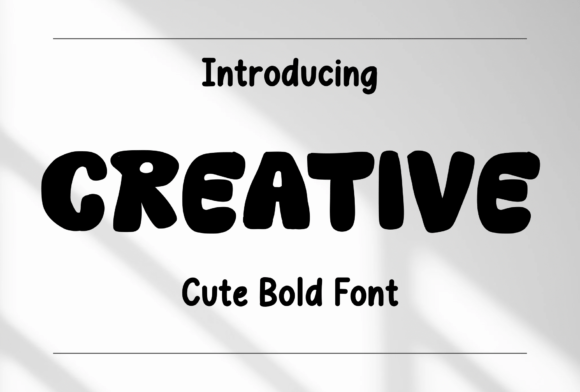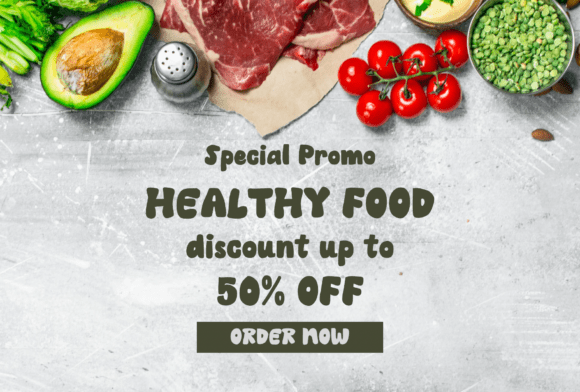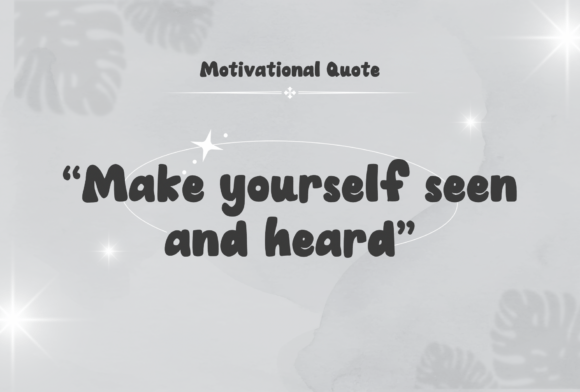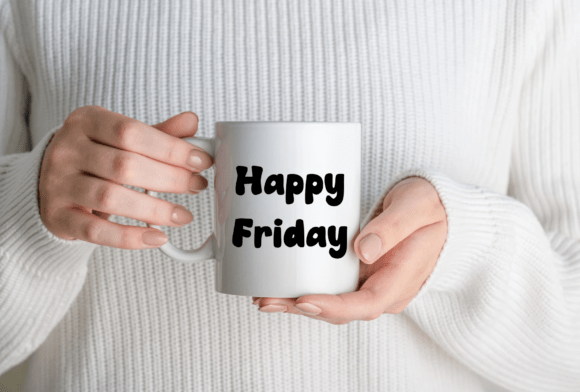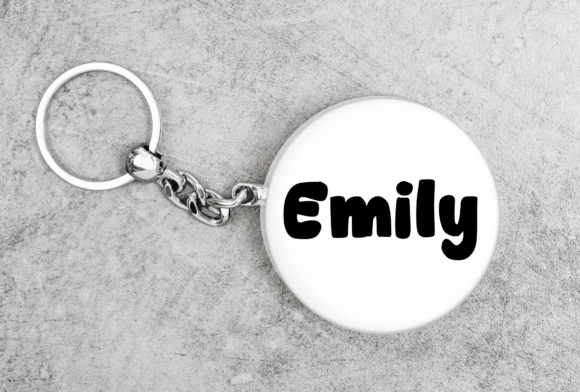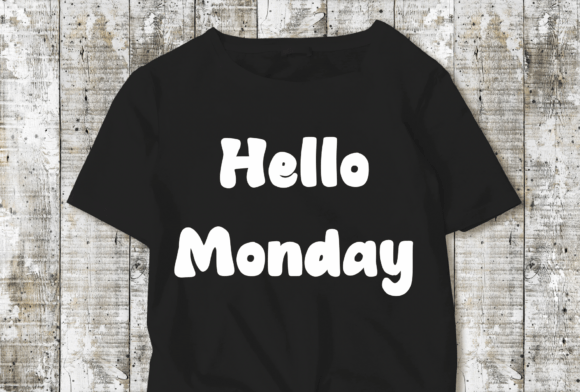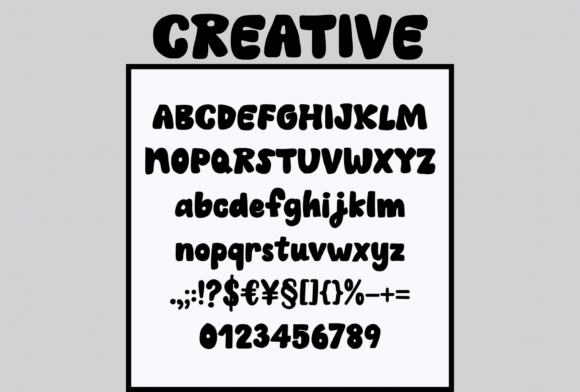
Where Creativity Meets Personality
Have you ever stared at a blank page, waiting for the perfect idea to strike? That moment of creative spark is what drives us to bring our visions to life. For designers, it’s the thrill of the challenge – to craft a visual identity that speaks directly to the audience’s heart. And that’s where the “Creative Font” comes in – a bold, playful typeface designed to make your ideas shine with confidence and charm.
With its thick, rounded letterforms and lively energy, the Creative Font is the perfect companion for any design project that needs a bold yet friendly personality. Whether you’re crafting eye-catching headlines, fun branding, product packaging, or social media graphics, this font is sure to leave a lasting impression. For designers, the Creative Font offers a valuable asset – a versatile tool to breathe life into their creative concepts and connect with their audience on a deeper level.
- Unique Characteristics: Features a unique blend of modern and vintage elements, offering a distinctive aesthetic that sets it apart from other fonts.
- Font Weight: Offers a range of font weights, from Light to Black, allowing for versatility in design applications.
- Font Kerning: Includes advanced font kerning for precise spacing and a polished look, enhancing overall typography quality.
Designer Review: Creative Font
As a designer, I’m always on the lookout for fonts that bring a unique touch to my projects. The Creative Font is no exception. Here’s what I think:
- Unique Character Set – This font boasts an impressive collection of glyphs, including a wide range of ligatures and swashes. It’s perfect for designers who want to add an extra layer of personality to their work.
- High-Quality Typography – The font’s crisp lines, smooth curves, and well-spaced letters make it a joy to read. It’s clear that the designers behind this font have a deep understanding of typography.
- Limited Customization Options – While the font itself is highly customizable, there are limited options for customizing the font’s behavior and appearance within certain design tools.
- Not Ideal for Small Text – Due to its complex design, the font can become difficult to read at very small sizes.
Overall, I’m impressed with the Creative Font. Its unique character set, high-quality typography, and flexible licensing options make it a great choice for designers looking to add some personality to their work. However, its limited customization options and poor performance at small text sizes may be a drawback for some users.
Use Creative Font to add a touch of personality to your designs. Experiment with different font sizes, colors, and styles to create a unique look. Use it to highlight important information, create visual hierarchies, or add emphasis to your text.
Use Creative Font for a variety of projects, including:
– Blog posts
– Business cards
– Infographics
– Presentations
Alternatives to Creative Font
Montserrat is a modern sans-serif font that is perfect for headlines and titles. It’s clean and minimalist design makes it ideal for digital interfaces and web design. Montserrat is more versatile than Creative Font, as it has a wider range of font weights and styles, making it suitable for various design projects.
Open Sans is another popular sans-serif font that is great for body text and content. It’s highly legible and readable, making it perfect for long-form content and articles. Open Sans is more readable than Creative Font, especially in smaller font sizes, but it lacks the unique character and personality of Montserrat.